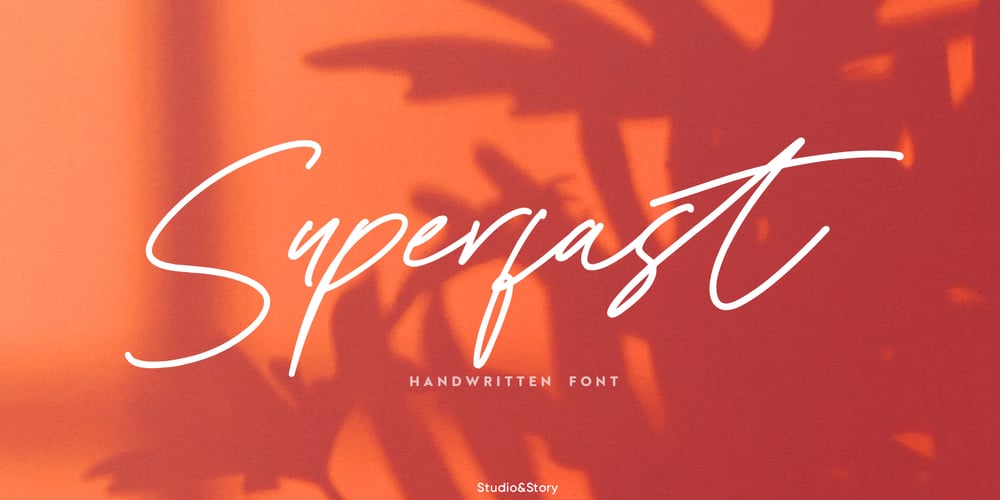
Superfast Font Family was designed by Michael Mervinetsky and published by Studio&Story. Superfast contains 1 styles and family package options. Superfast is a hand-written, flowing, script that will add a fast and sharp movement style to your projects. It charms you right at the beginning. If you are looking for a sensitive font that can respond to the vibe of your design, Superfast is the right choice. On the one hand it is elegant and luxurious, and on the other hand, trendy and modern.Created for beautiful logos, branding projects, posters, blog posts, social media, campaigns, advertising, web design and more!Superfast contains upper and lowercase characters, numerals and a large range of punctuation. ItsOpenType features include 41 Ligatures and a large number of alternates, which make everything you write authentic and flowing.